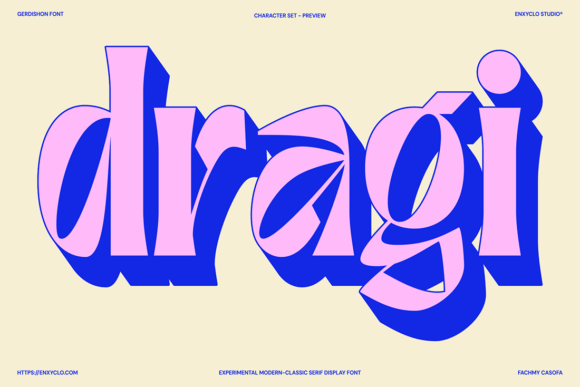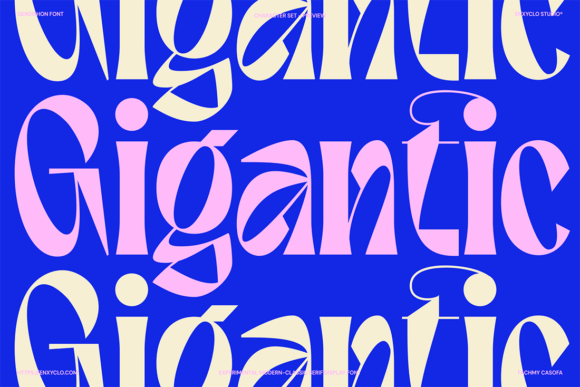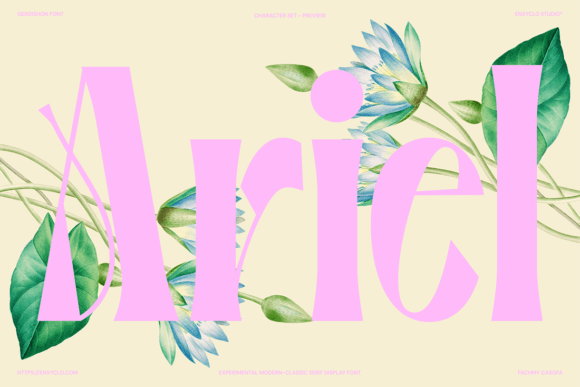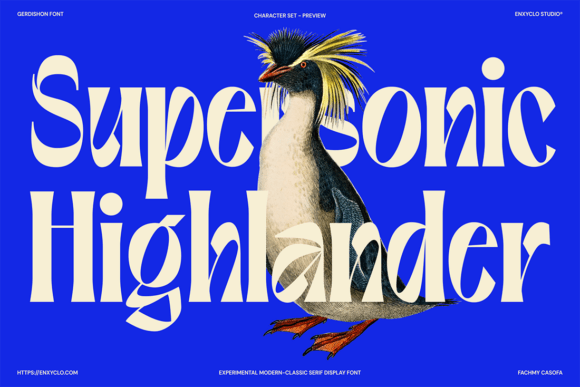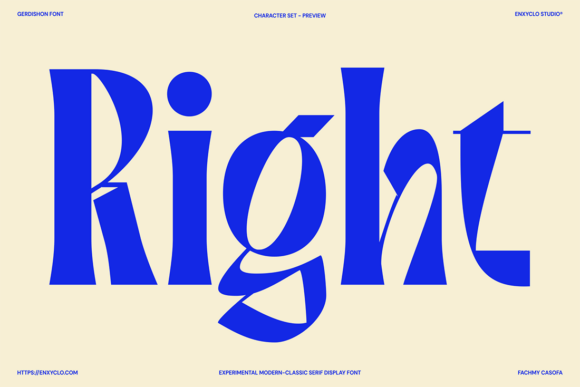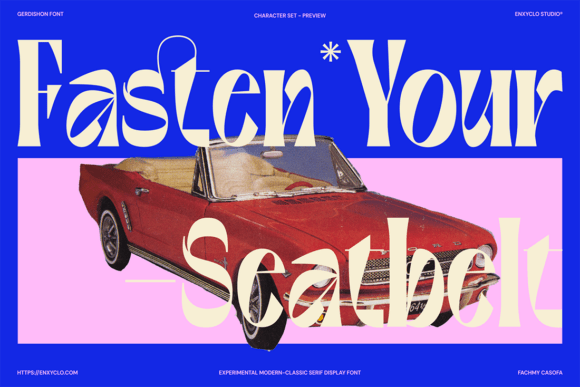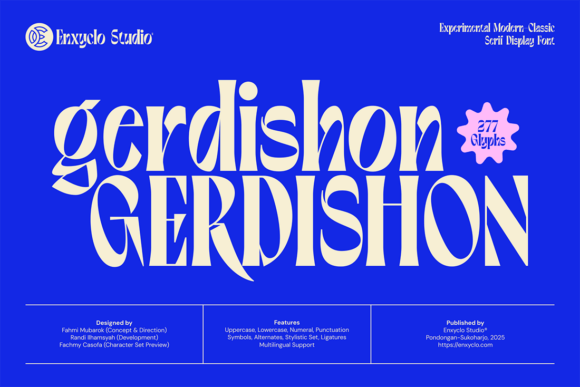
Introducing Gerdishon Font: A Bold and Experimental Modern-Classic Serif Display Typeface
In the world of typography, a new font has emerged that is pushing the boundaries of modern design. Meet Gerdishon, a bold and experimental modern-classic serif display typeface that is designed to make a statement. With its sharp edges, dramatic curves, and artistic flair, Gerdishon is the perfect choice for designers who dare to be different.
A Perfect Blend of Classic Elegance and Modern Attitude
Gerdishon seamlessly blends classic elegance with a modern-classic attitude, making it a versatile font for a wide range of design applications. Whether you’re working on editorial headlines, logo design, album covers, or posters, Gerdishon is the perfect choice. Its unique combination of sharp edges and dramatic curves gives it a distinctive look that is sure to grab attention.
Designed for Designers Who Dare to be Different
Gerdishon is not just a font – it’s a visual experience. Crafted for designers who are looking for a typeface that will set them apart from the crowd, Gerdishon is the perfect choice for those who want to add a touch of sophistication and elegance to their designs. With its bold and experimental approach, Gerdishon is sure to inspire creativity and push the boundaries of modern design.
Key Features of Gerdishon Font
- Sharp Edges: Gerdishon’s sharp edges give it a bold and modern look that is perfect for making a statement.
- Dramatic Curves: The font’s dramatic curves add a touch of elegance and sophistication, making it perfect for editorial headlines and logo design.
- Artistic Flair: Gerdishon’s artistic flair sets it apart from other fonts, making it a unique and creative choice for designers.
- Modern-Classic Attitude: The font’s modern-classic attitude makes it a versatile choice for a wide range of design applications.
Applications of Gerdishon Font
Gerdishon is a versatile font that can be used in a wide range of design applications, including:
- Editorial Headlines: Gerdishon’s bold and elegant design makes it perfect for editorial headlines, such as magazine covers and article titles.
- Logo Design: The font’s unique combination of sharp edges and dramatic curves makes it a great choice for logo design, particularly for brands that want to make a bold statement.
- Album Covers: Gerdishon’s artistic flair and modern-classic attitude make it a great choice for album covers, particularly for music artists who want to stand out from the crowd.
- Posters: The font’s bold and eye-catching design makes it perfect for posters, whether you’re promoting a concert, a product, or a service.
Why Choose Gerdishon Font?
So why choose Gerdishon font for your next design project? Here are just a few reasons:
- Unique Design: Gerdishon’s unique combination of sharp edges and dramatic curves sets it apart from other fonts, making it a great choice for designers who want to stand out from the crowd.
- Versatility: The font’s modern-classic attitude makes it a versatile choice for a wide range of design applications, from editorial headlines to logo design.
- Elegance and Sophistication: Gerdishon’s elegant and sophisticated design makes it perfect for designers who want to add a touch of class to their designs.
In conclusion, Gerdishon font is a bold and experimental modern-classic serif display typeface that is pushing the boundaries of modern design. With its sharp edges, dramatic curves, and artistic flair, Gerdishon is the perfect choice for designers who dare to be different. Whether you’re working on editorial headlines, logo design, album covers, or posters, Gerdishon is a versatile font that is sure to inspire creativity and make a statement.